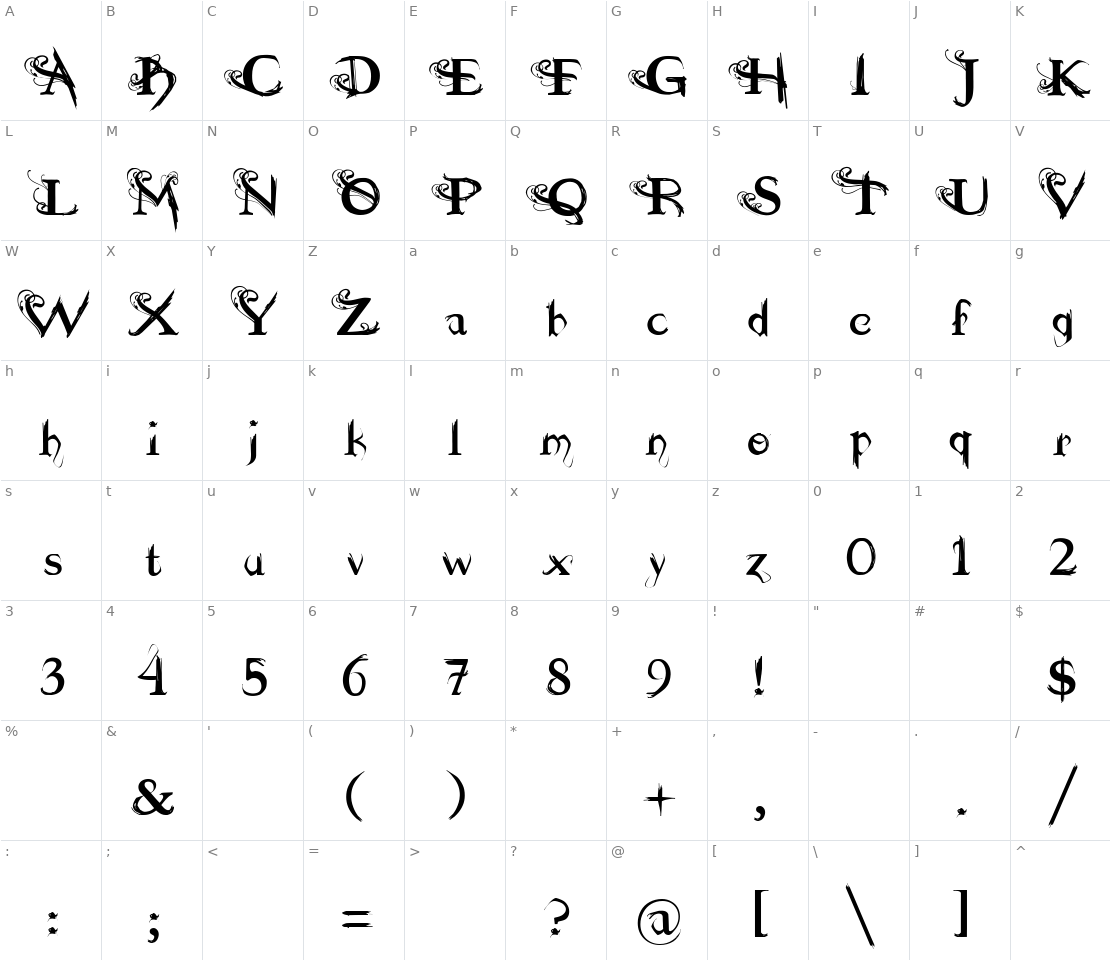
Dilana Experimentype
by N�stor Ferranti
Dilana Experimentype is a decorative serif from Néstor Ferranti with elaborate swash details and curling ornamental flourishes that give it a fantasy-tinged, almost storybook quality. The letterforms are highly artistic and expressive, each one feeling like a small illustration in its own right. Best reserved for headlines, drop caps, and display contexts where the intricate detailing has room to breathe and show off.